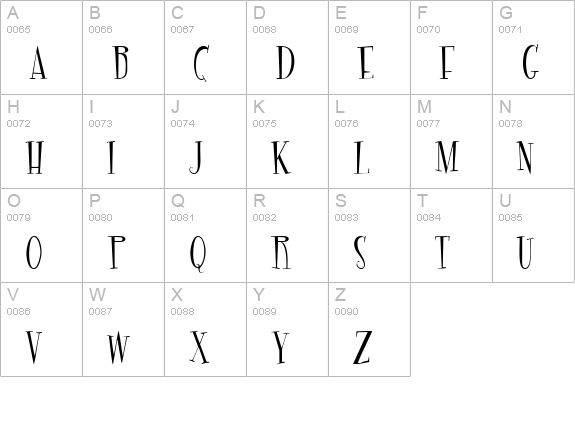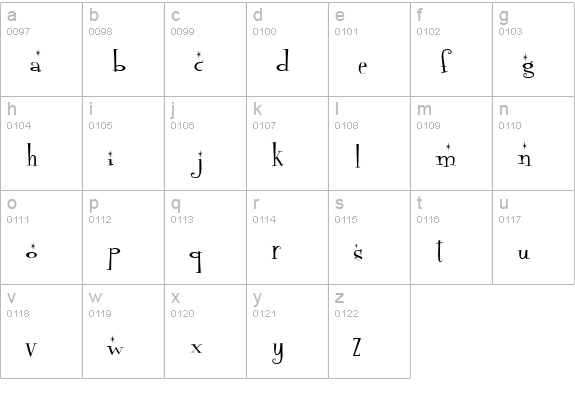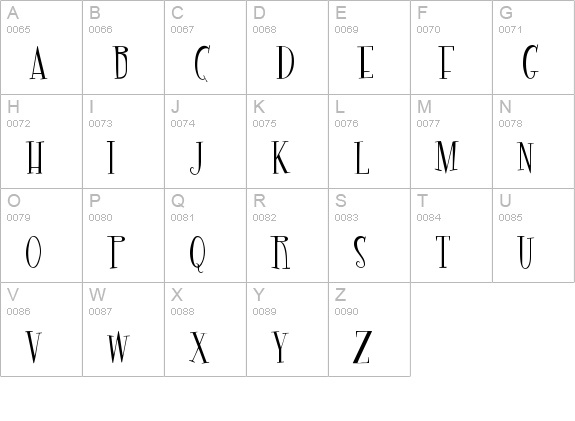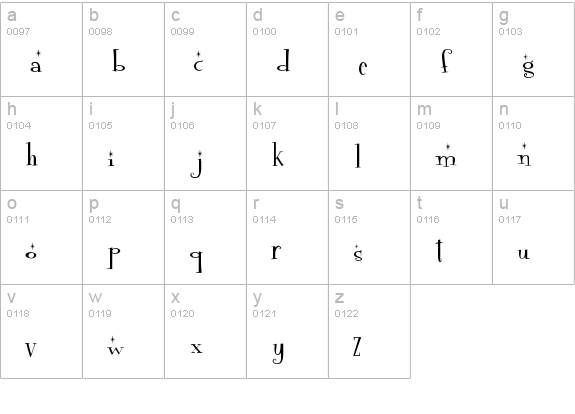
Fontdinerdotcom Sparkly Font Details
The Fontdinerdotcom Sparkly font is a dazzling and whimsical typeface that will add a touch of sparkle to any project. With its glittering appearance and playful charm, this font is perfect for creating eye-catching designs that stand out from the crowd. Whether you're working on invitations, posters, or social media graphics, Fontdinerdotcom Sparkly is sure to bring a touch of magic to your creations. Best of all, this delightful font is available for free download at FontsMarket.com. Simply head to the website to easily access and incorporate Fontdinerdotcom Sparkly into your design projects. Don't miss out on the opportunity to add a sprinkle of glitter and shine to your work with this fabulous font!